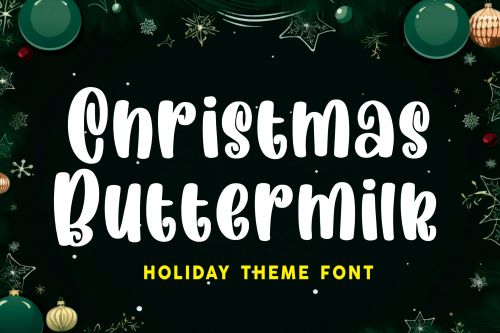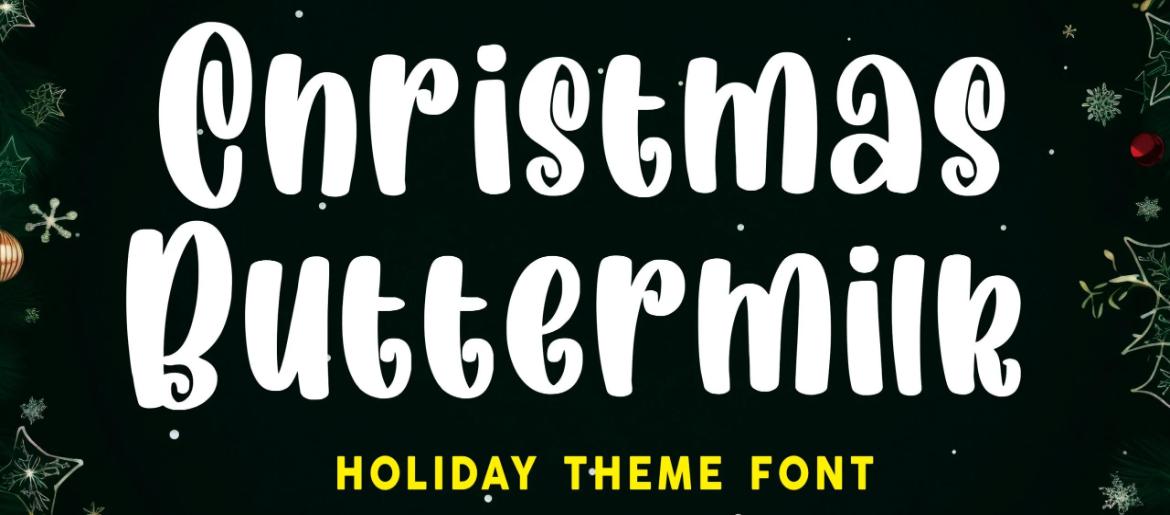
Christmas Buttermilk Font
A charming handwritten script font that captures the warmth and joy of the holiday season. With graceful strokes and beautifully crafted opening and ending swashes, it adds a magical, festive touch to any design. Perfect for Christmas cards, wedding invitations, birthday greetings, and Thanksgiving décor, Christmas Buttermilk brings a cozy, handcrafted feeling to every project.
➤ Font Name: Christmas Buttermilk
➤ Designer: Mozatype
➤ Style: Handwritten